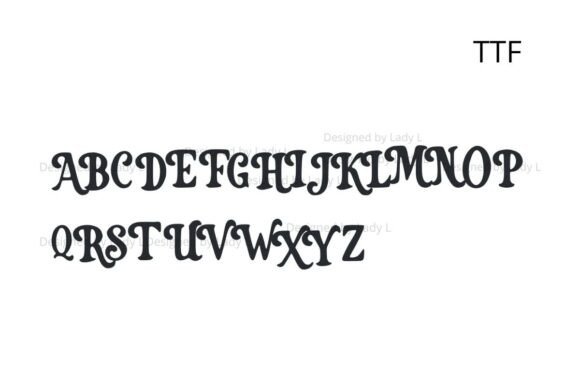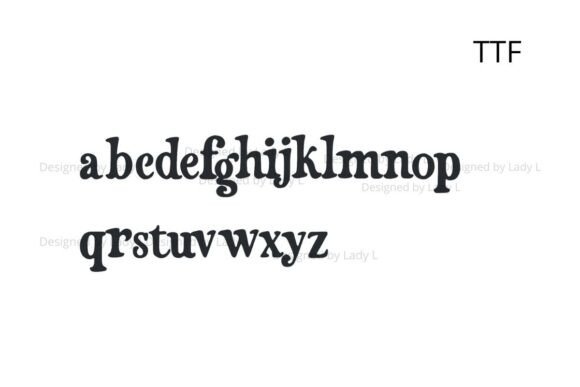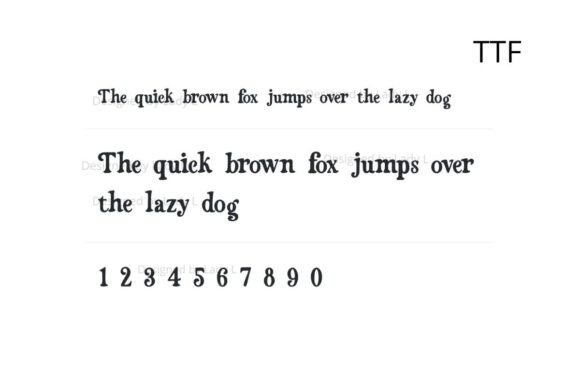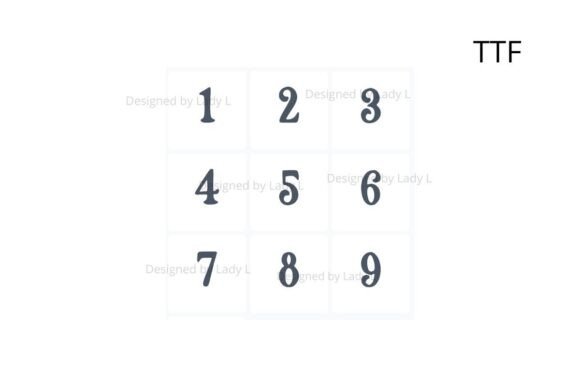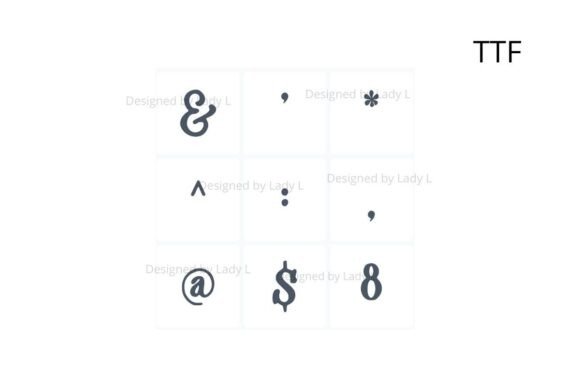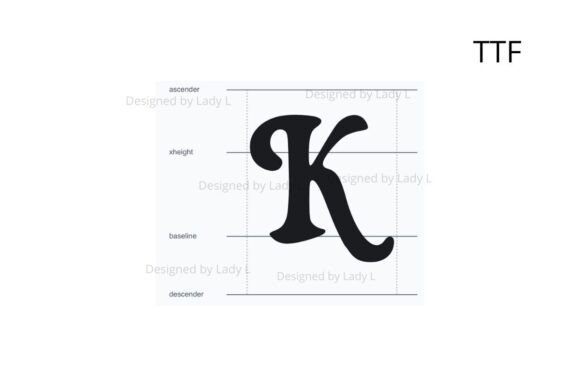
Introduction to Groovy Newspaper Font
Do you remember the thrill of discovering a hidden treasure trove of vintage fonts in a dusty old bookstore? For designers, the search for the perfect font can be a lifelong adventure. And when you stumble upon the Groovy Newspaper Font, you’ll know you’ve struck gold. This cheerful and retro-inspired serif font is a design treasure that will add a dash of grooviness to any project.
Whether you’re working on a high-quality design project or need a free download for a quick creative fix, the Groovy Newspaper Font is a versatile design resource that’s sure to bring a smile to your face. Its bold curves and soft terminals give it a playful and friendly vibe, making it perfect for standout headlines, posters, or kids’ projects. And with a transparent background, you can use it on any design surface, from print to digital.
With its quirky twist and nostalgic charm, the Groovy Newspaper Font is a valuable addition to any designer’s toolkit. So why settle for a generic font when you can add a touch of grooviness to your next project with this fantastic font?
Key Features of Groovy Newspaper Font
- Unique blend of vintage and modern design elements, perfect for creative projects
- High-quality font with a transparent background, ideal for use on various design resources
- Includes a range of characters, including uppercase and lowercase letters, numbers, and punctuation
- Perfect for use in digital and print designs, with a resolution of 300 DPI
- Great for creating a groovy and eye-catching look in your newspaper, magazine, or other publication design
Honest Review: Groovy Newspaper Font
I recently stumbled upon the Groovy Newspaper Font while searching for a free download to add some vintage charm to my design project. As a designer, I was excited to see how this font would perform.
Here are some of the things that work well with this font:
- ✨ High-quality design: The Groovy Newspaper Font has a clear, crisp texture that gives it a truly vintage feel.
- ✨ Versatility: This font is perfect for a variety of creative projects, from print ads to posters and even web design.
- ⚠️ Limited character set: The Groovy Newspaper Font only includes a limited set of characters, which may not be suitable for longer text-based projects.
- ⚠️ Not ideal for small text: The font’s texture can make small text difficult to read, so it’s best used for headings and larger text.
Overall, I’m impressed with the Groovy Newspaper Font. It’s a great addition to any design resource and can add a unique touch to creative projects. Just be aware of its limitations and use it accordingly.
How to Use Groovy Newspaper Font
Using Groovy Newspaper Font in PowerPoint/Word
Insert the Groovy Newspaper Font into your PowerPoint or Word document and use it to create engaging presentations and reports. The font’s transparent background makes it easy to layer over other design elements.
Tips for Getting the Most Out of Groovy Newspaper Font
Use the font in conjunction with a distressed texture or a vintage background to create a truly retro look. Experiment with different font sizes and colors to add emphasis to your text.
Common Use Cases for Groovy Newspaper Font
The Groovy Newspaper Font is perfect for creating designs for music festivals, vintage-themed events, and retro-style advertisements. Its high-quality design makes it a valuable resource for any creative project.